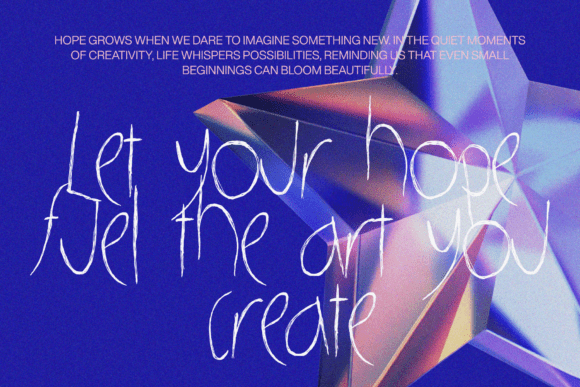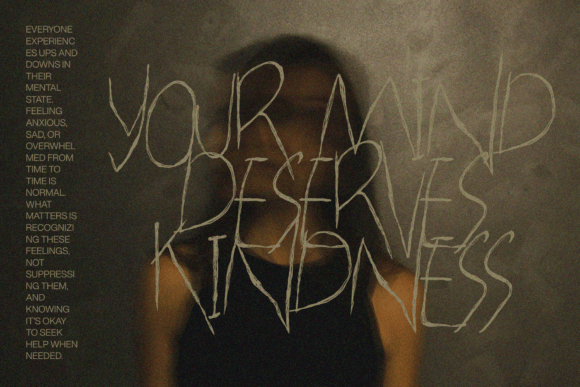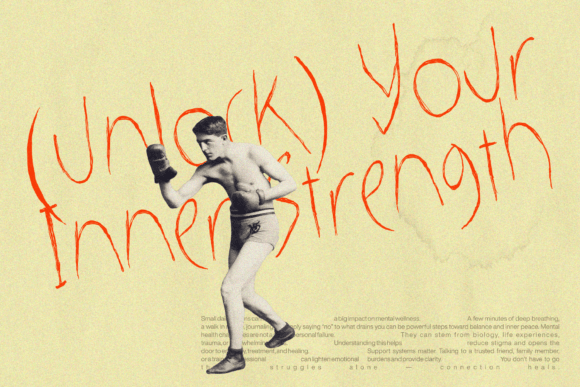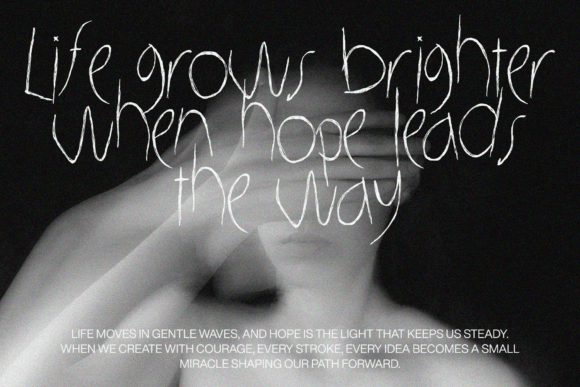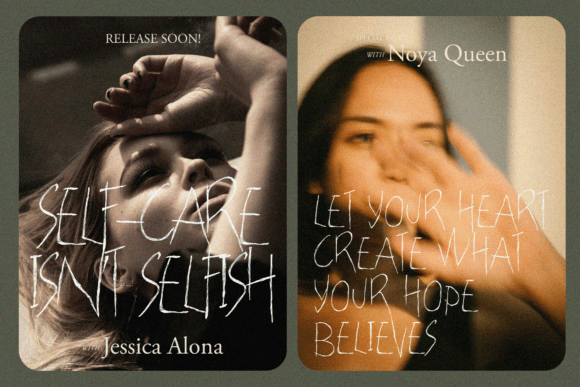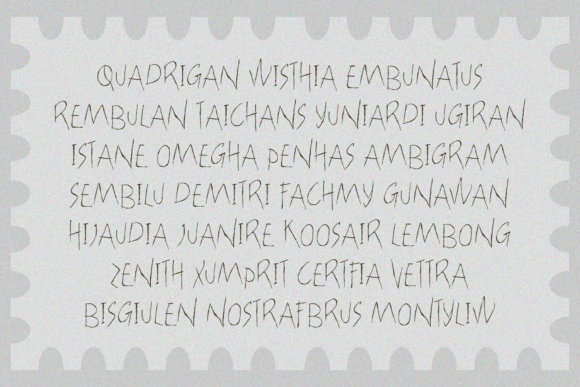
Introduction to Migoney Font Font
Fonts play a crucial role in design, and the Migoney Font font is a typeface that brings both character and versatility to any project. Whether you’re working on a branding project, a website, or a print design, the Migoney Font font offers a unique style that can elevate your work.
MIGONEY is a raw, rough, and handwritten font that blends natural imperfection with timeless classic charm.
Crafted with an organic pen-and-paper feel, MIGONEY delivers an authentic aesthetic look that feels casual, expressive, and intentionally imperfectโperfect for designers who want their work to feel real, bold, and full of character Its uneven strokes and handcrafted texture make MIGONEY stand out in modern branding, editorial layouts, creative agency visuals, and impactful posters or headlines.
Key Features of Migoney Font Font
- โ High-quality typeface designed for professional use
- โ Includes a wide range of glyphs and characters
- โ Ideal for logos, branding, websites, and print
Why Choose Migoney Font Font?
The Migoney Font font is more than just a typeface โ it’s a design tool that helps you communicate your message with style and clarity. Its unique character set and versatile design make it suitable for a wide range of applications, from elegant invitations to bold headlines.
With its carefully crafted letterforms and balanced proportions, the Migoney Font font ensures readability and visual appeal across all mediums.
What makes Migoney Font font special?
The Migoney Font font stands out with its unique design, exceptional readability, and versatility across various design applications.